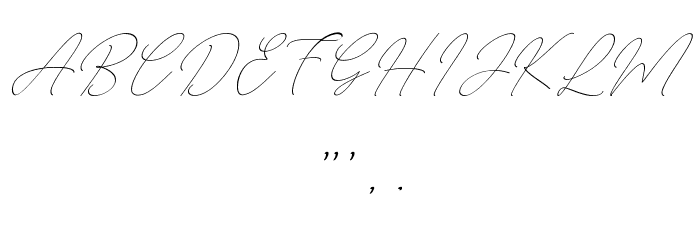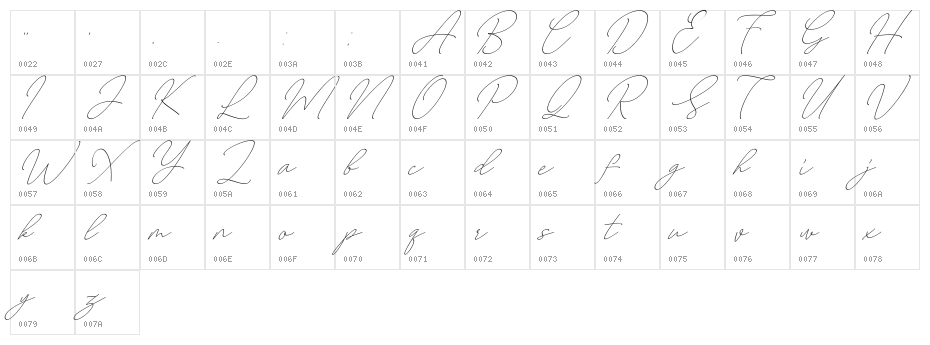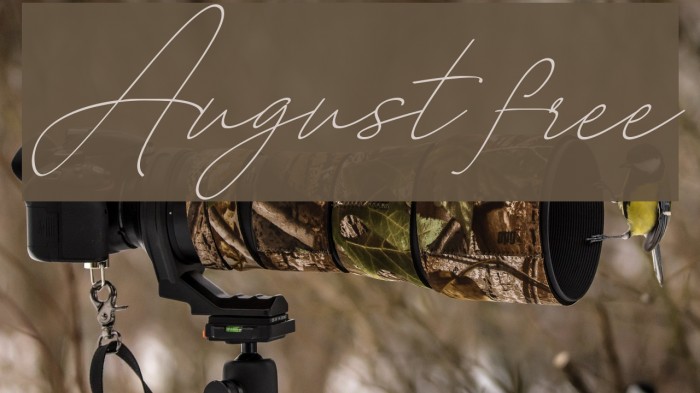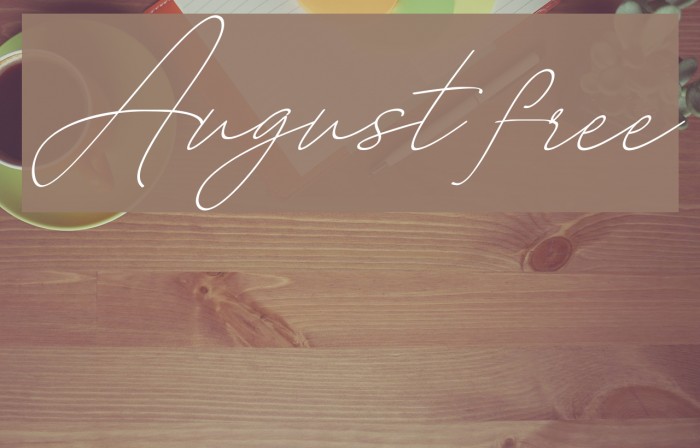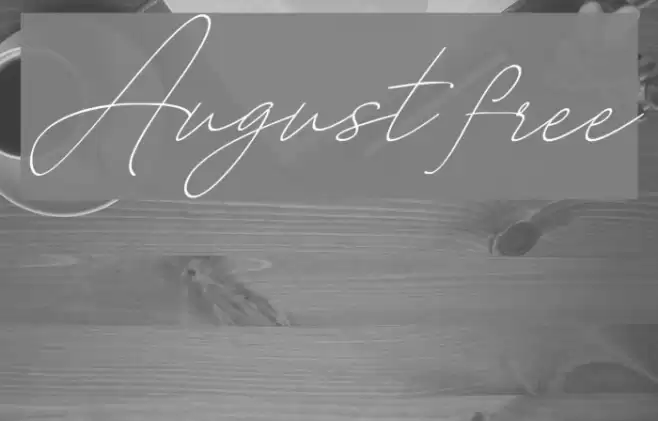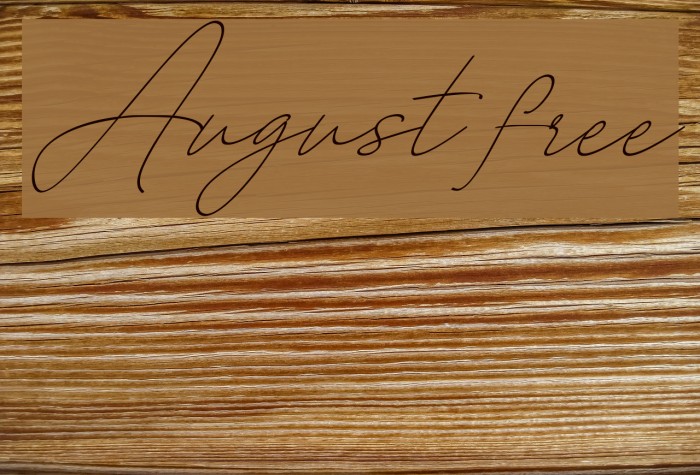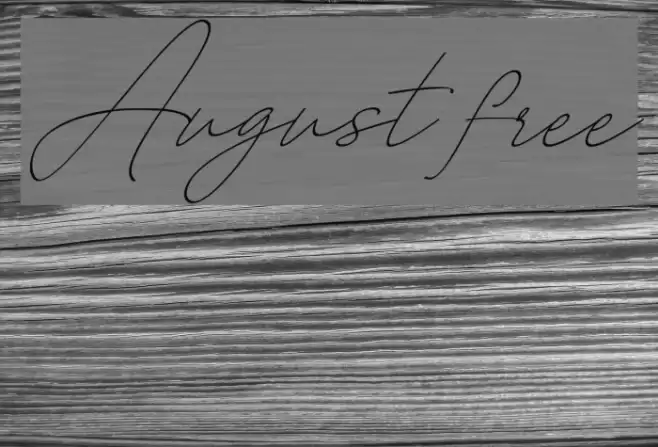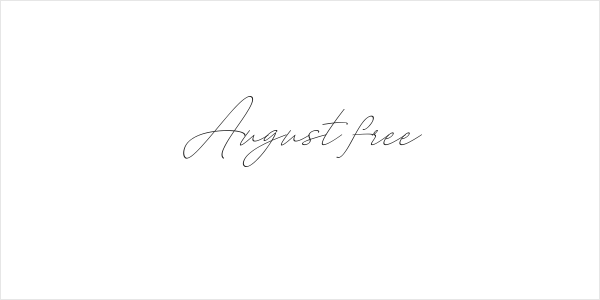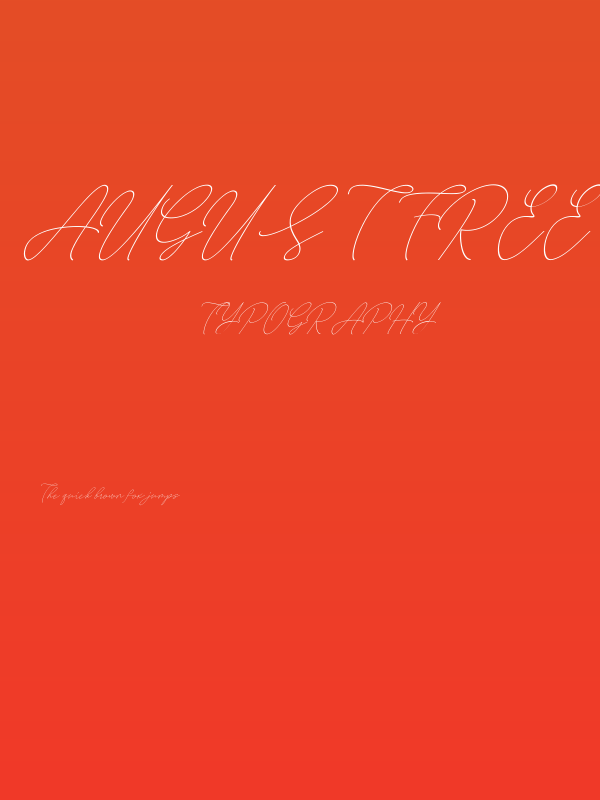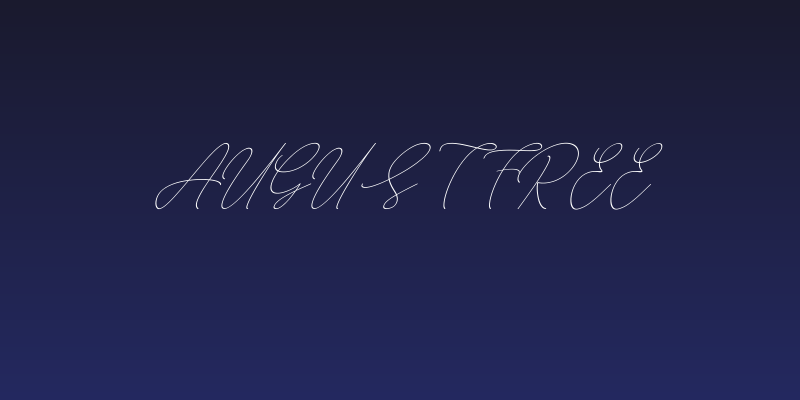
August free Font
August free Description
This elegant script font features a flowing, cursive style with delicate, thin strokes that create a sense of sophistication and grace. The uppercase letters are slightly more ornate, with sweeping curves and loops that add a touch of flair. The lowercase letters maintain a consistent rhythm, with smooth connections between each character, enhancing readability while preserving the font's decorative nature. The overall design is airy and light, making it suitable for projects that require a touch of elegance and refinement. The font's style is reminiscent of classic calligraphy, yet it maintains a modern sensibility, making it versatile for various applications.
| Proposed Projects | Ideal for wedding invitations, elegant branding, personal stationery, and upscale packaging. |